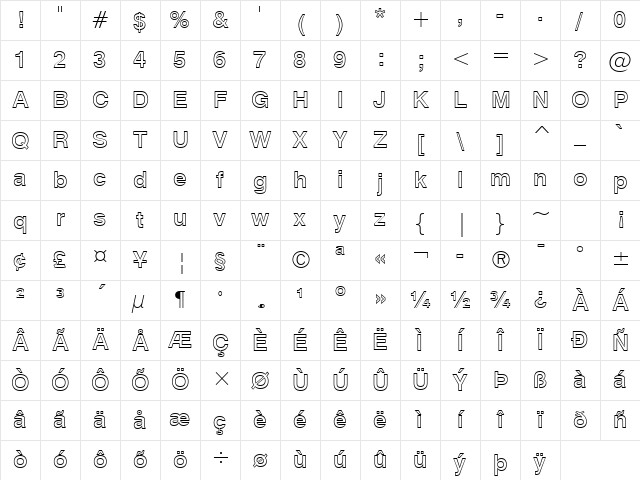
Complete Swis721 BdOul BT Bold glyph index. Displaying only characters natively supported by Swis721 BdOul BT Bold font.
Swis721 BdOul BT is a composed and adaptable typeface that performs quietly and consistently across a wide range of design contexts. Its bold stroke weight gives it real presence on the page.